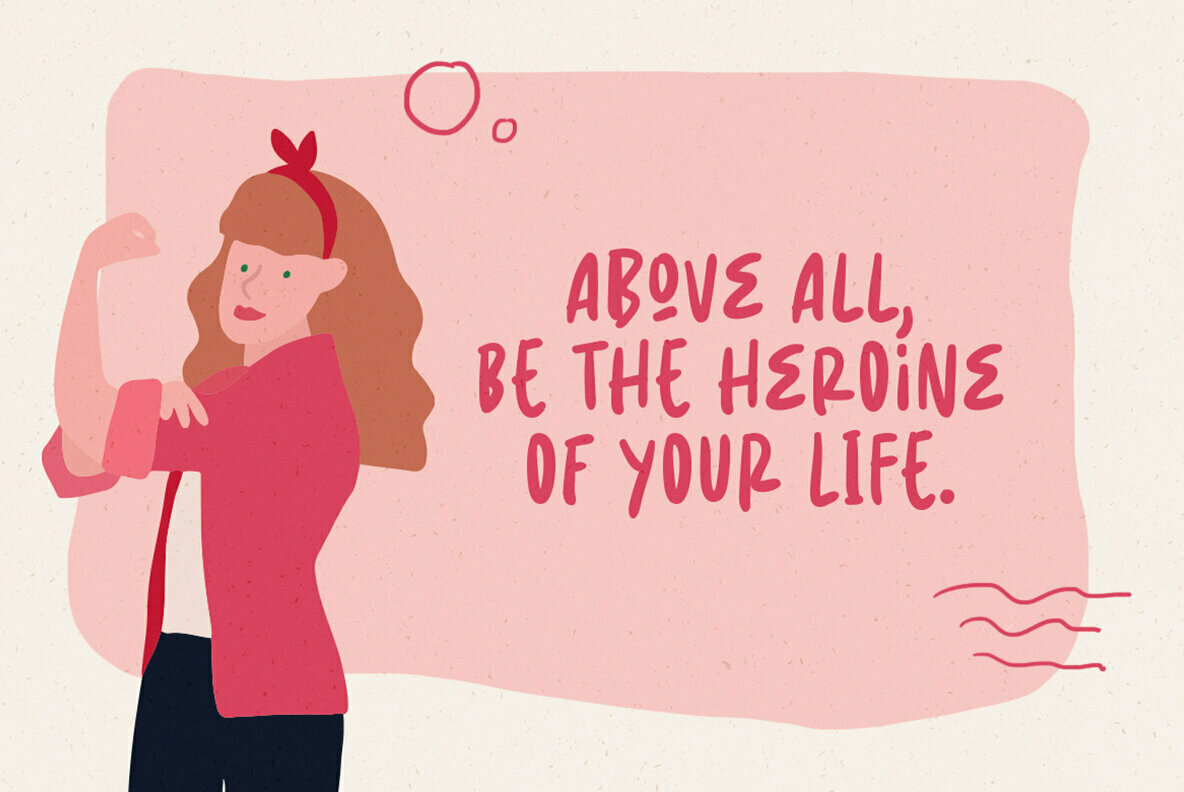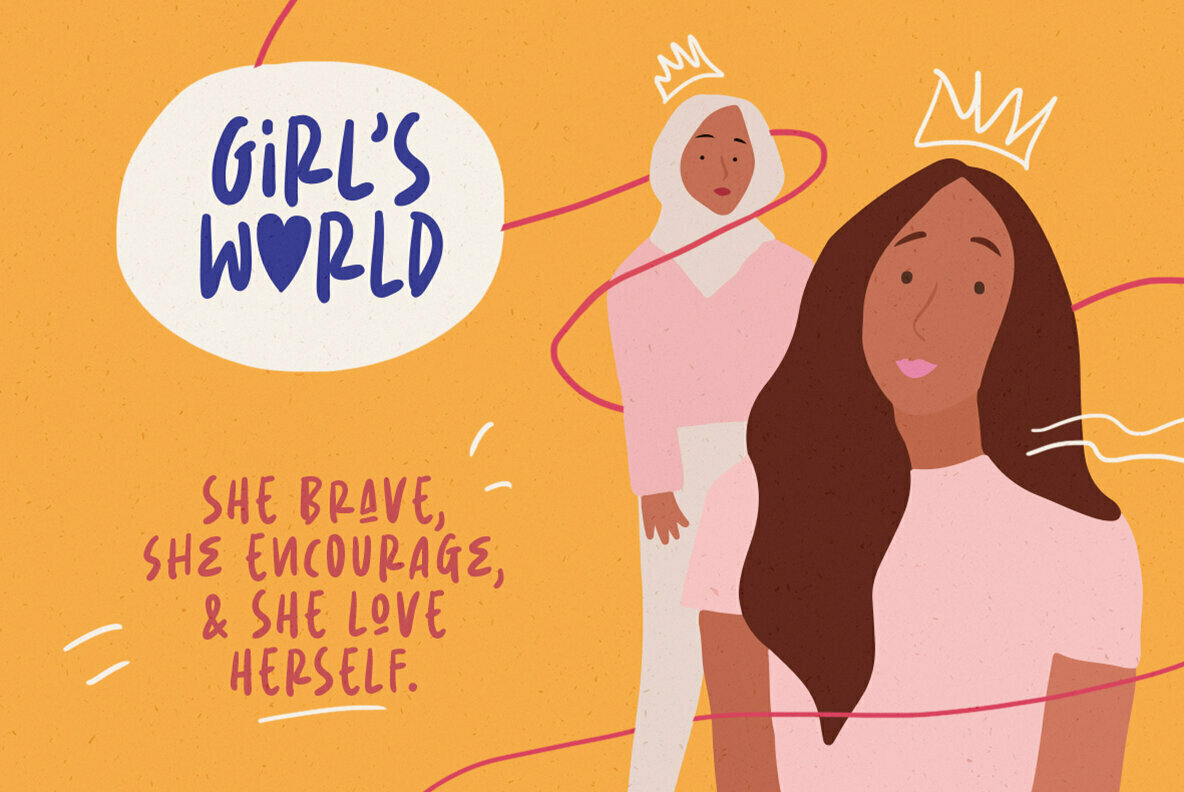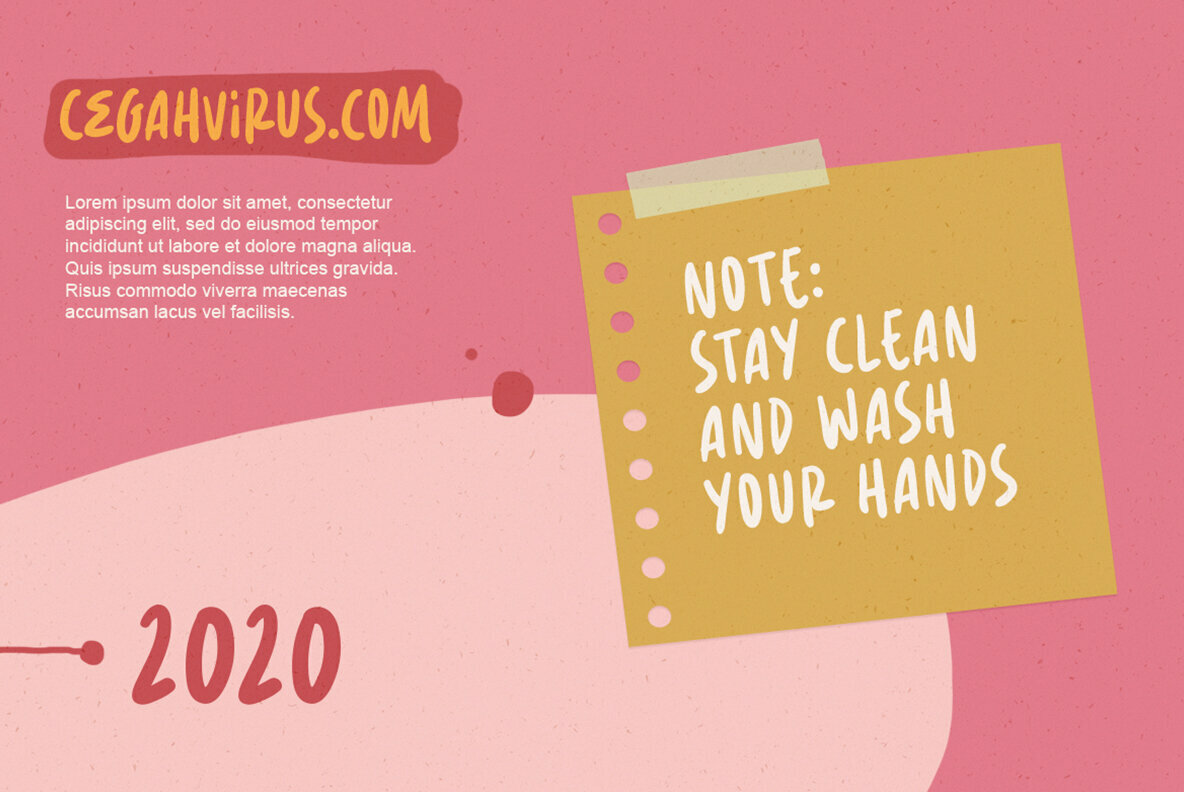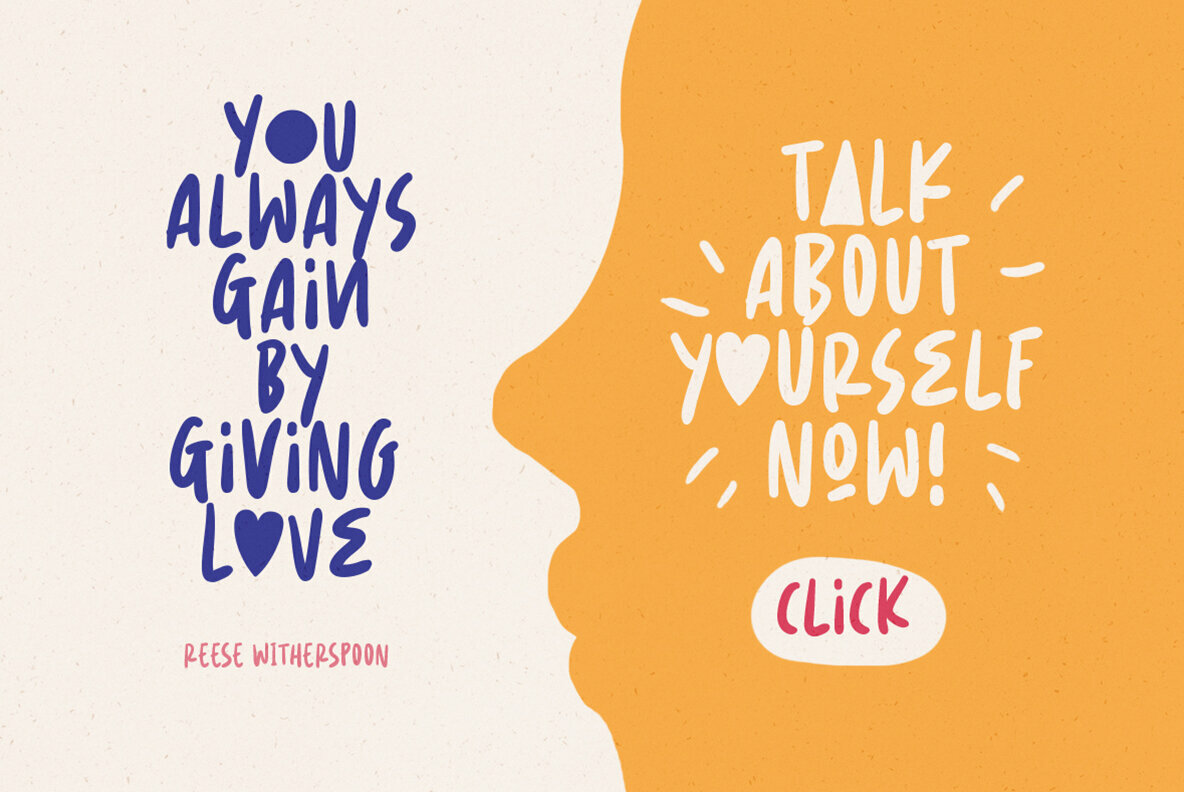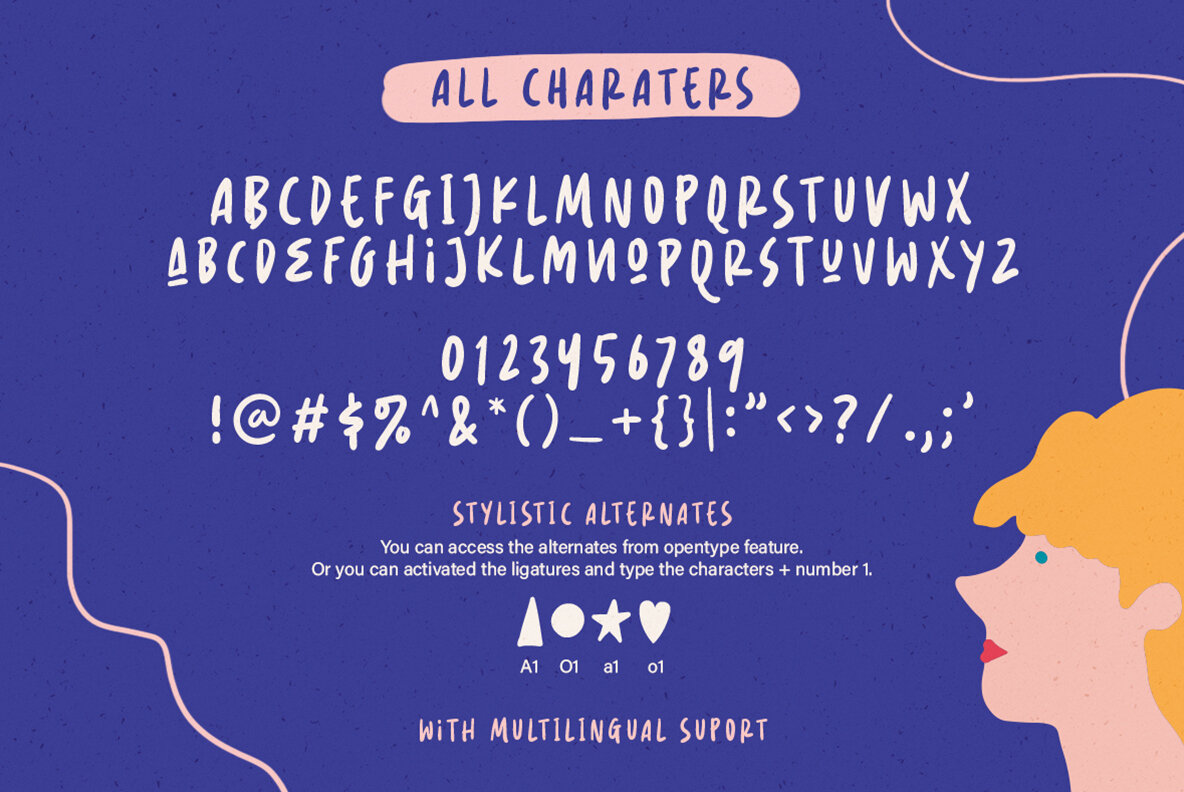
Quinstar Font
Quinstar Regular
Quinstar offers a unique hand marker aesthetic, ideal for creative projects that demand authenticity and character. This font includes a full range of uppercase and lowercase letters, numbers, and symbols, ensuring versatility across various applications, from digital platforms to print media.Quinstar: Versatile Hand Marker Font